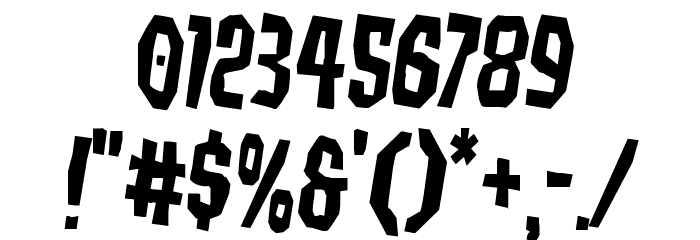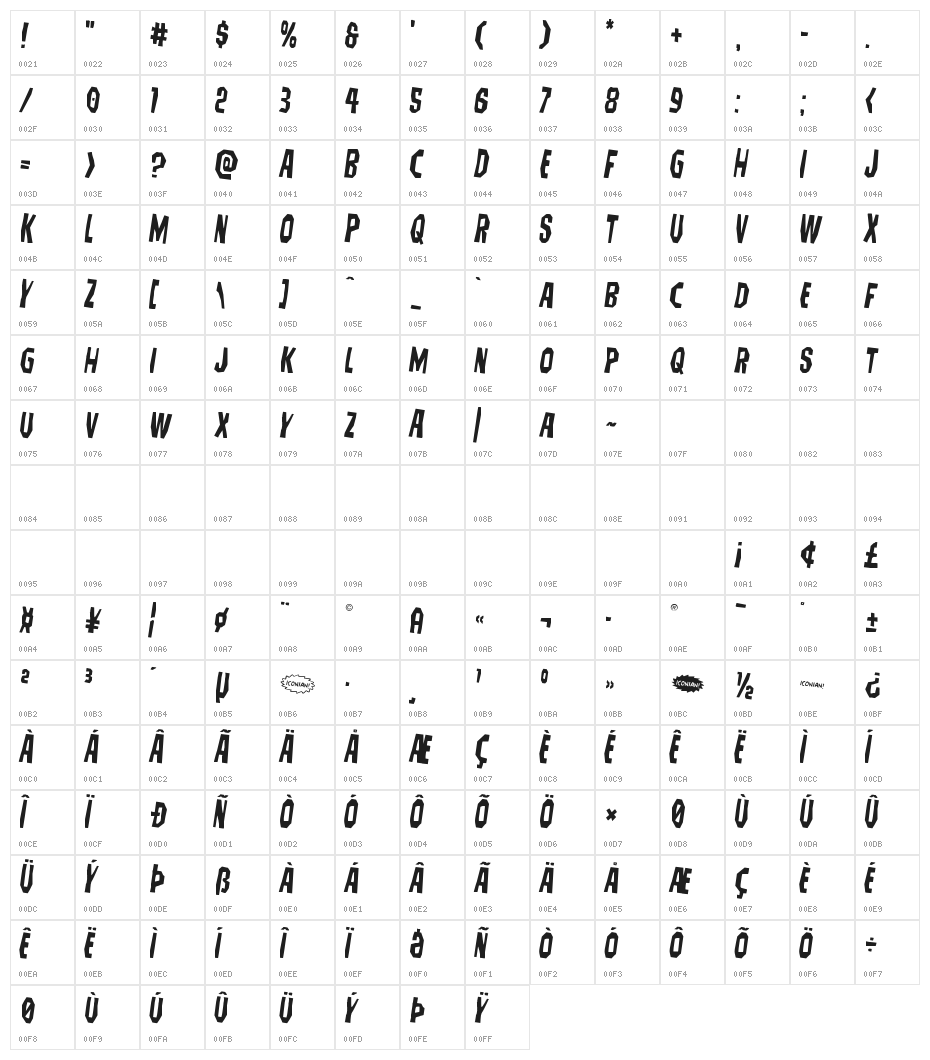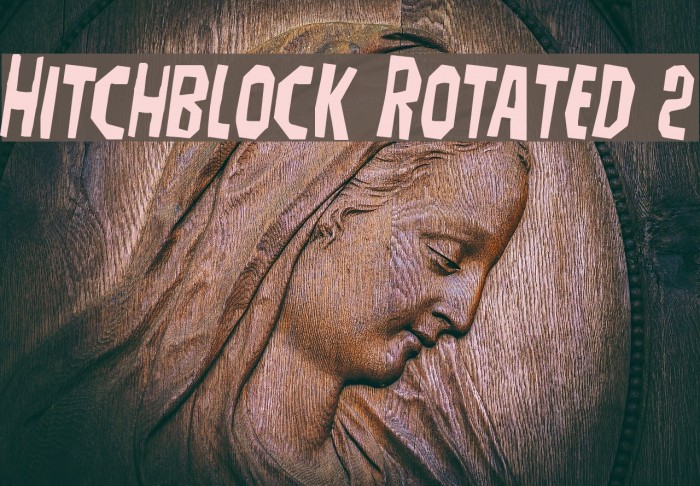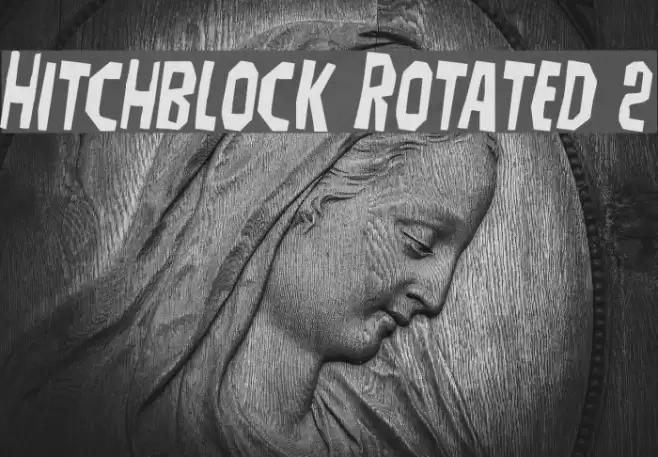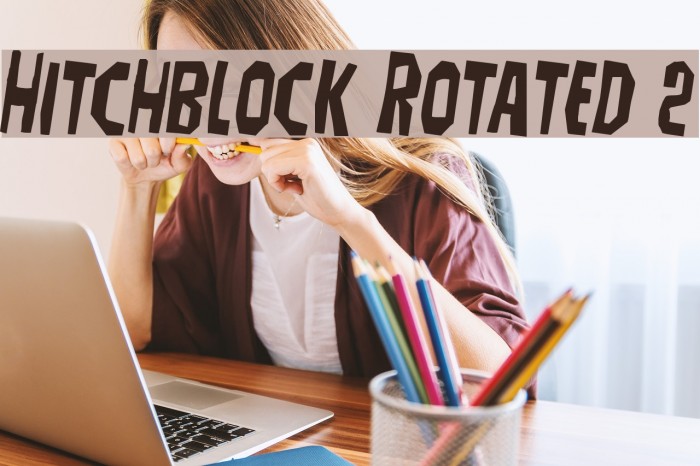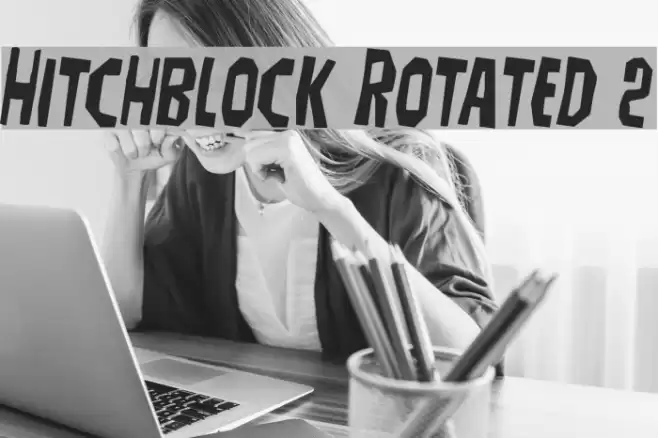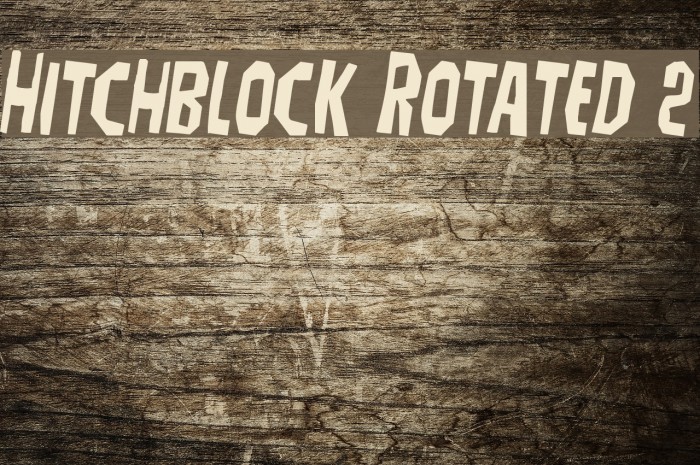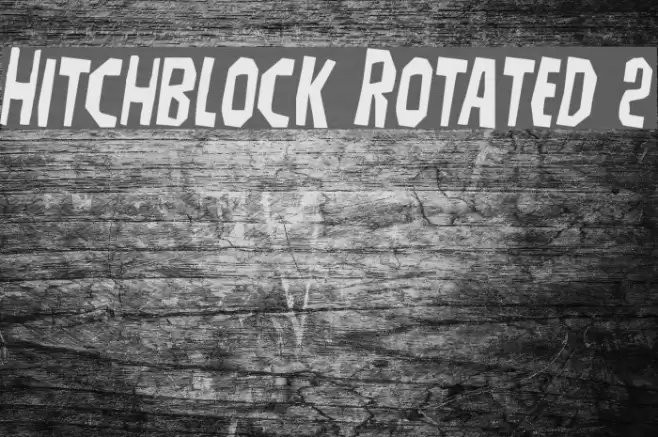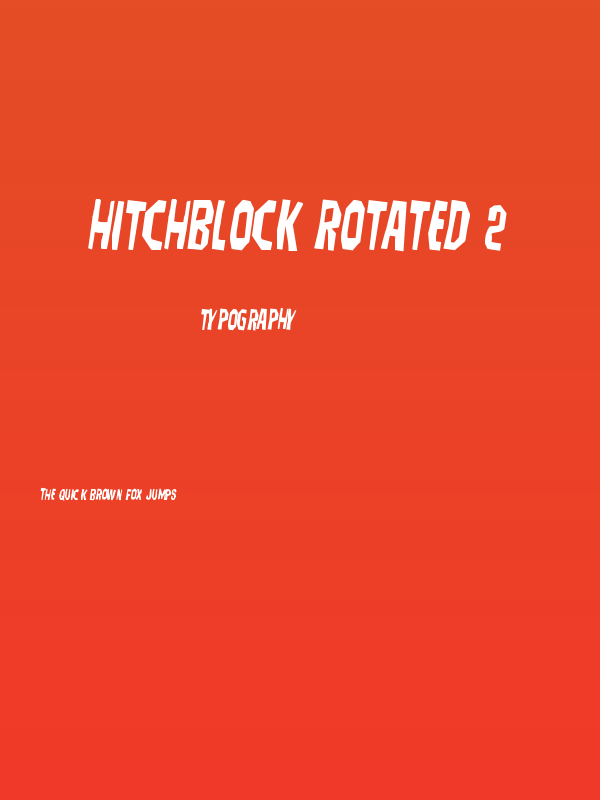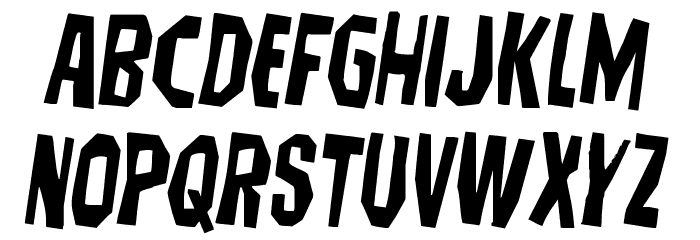
Hitchblock Rotated 2 Font
Hitchblock Rotated 2 Description
This font features a bold and dynamic design with a distinct slant, giving it a sense of motion and energy. The characters are angular and geometric, with sharp edges and a slightly condensed form. The uppercase and lowercase letters maintain a consistent style, enhancing readability while adding a unique flair. Numbers and special characters are designed to match the boldness and angularity of the letters, making the font versatile for various uses. The overall appearance is modern and eye-catching, suitable for projects that require a strong visual impact.